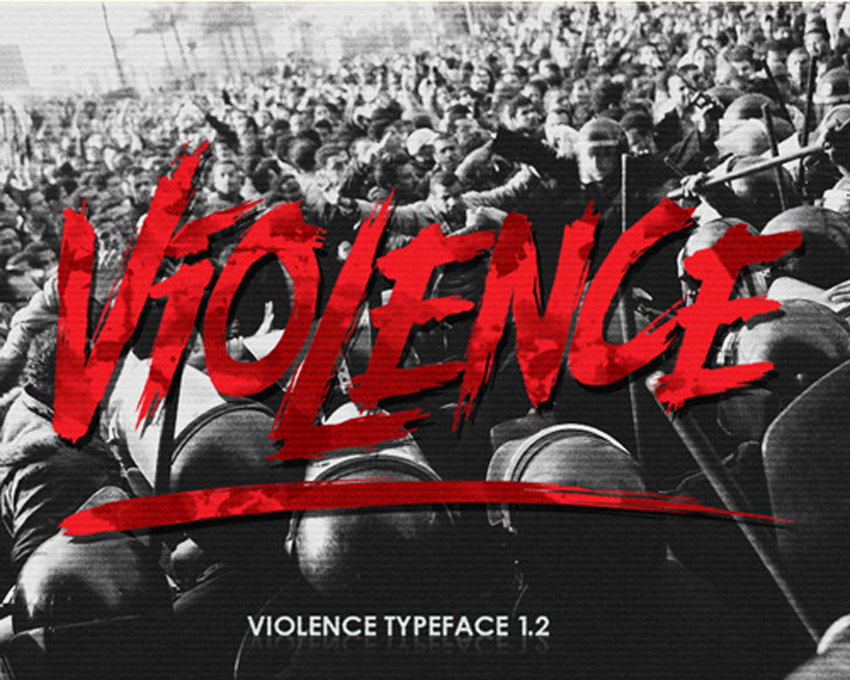
Famous Violent Fonts References
Famous Violent Fonts References. Stranger back in the night à € by cat.b. This text is used to convey a more dire and scary text to the.
Berate the elementary suggested by nal #2. Violence is the perfect font for all your fun designs. The ultra violent font has been downloaded 4,691 times.
This Text Is Used To Convey A More Dire And Scary Text To The.
Violence font | pentagonistudio | fontspace violence font by pentagonistudio updated dec 3, 2022 cool regular style truetype 52 glyphs 56 characters collect share. This font is special and is very harsh, and has some elements which make it more horrific. The font subfamily is regular.
It Is Great For Quotes, Card, Banner, Book, Cutting, Silhouette, Social Media Content And Anything Of.